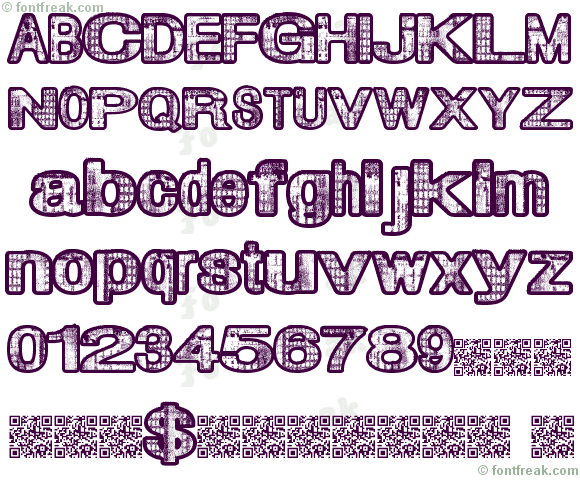
CityMagic
CityMagic by XEROGRAPHER FONTS is a captivating display font that exudes a unique charm, making it perfect for a variety of creative projects. This font features a playful and whimsical design, showcasing a combination of bold and intricate elements that catch the eye. The stroke weight varies throughout the characters, providing a striking contrast that adds depth to any text. The spacing is well-balanced, ensuring legibility while maintaining a dynamic visual presence. Decorative elements are integrated seamlessly, giving the font a sense of character and personality.
CityMagic is an excellent choice for a range of applications. It works beautifully for wedding invitations, where the enchanting style can evoke a sense of romance and celebration. The font’s playful nature also makes it suitable for children’s book covers, where it can attract young readers with its fun and engaging appearance. Additionally, CityMagic is ideal for restaurant menus, especially for eateries focusing on a creative or eclectic theme, drawing customers in with its unique flair. Movie posters can benefit from its eye-catching design, providing a distinctive title treatment that resonates with audiences.
What truly sets CityMagic apart is its ability to infuse projects with a sense of magic and whimsy. This font is not just about aesthetics; it tells a story and sparks imagination, making it an invaluable asset for those seeking to leave a lasting impression.